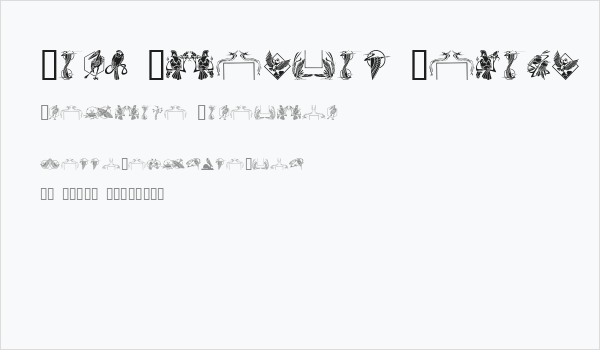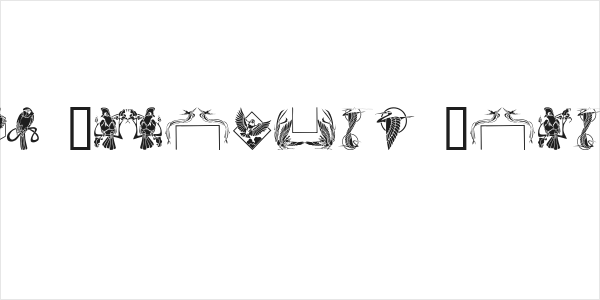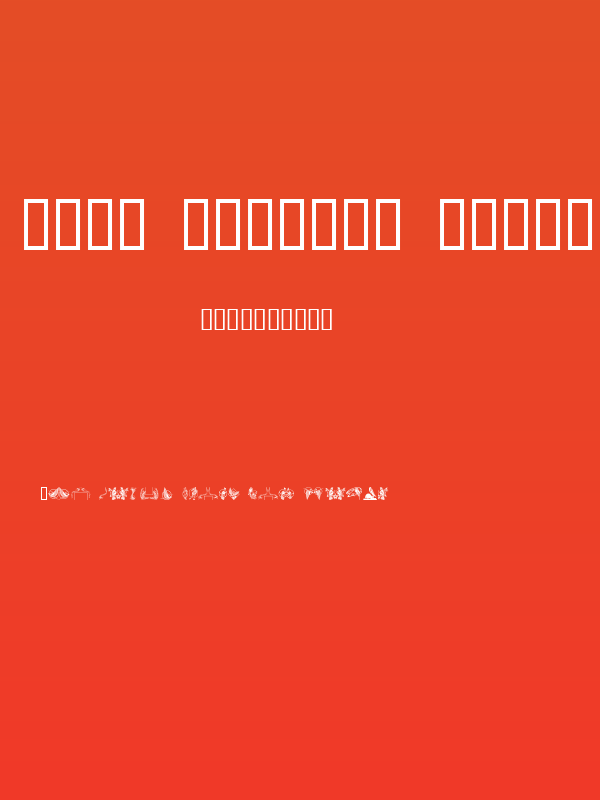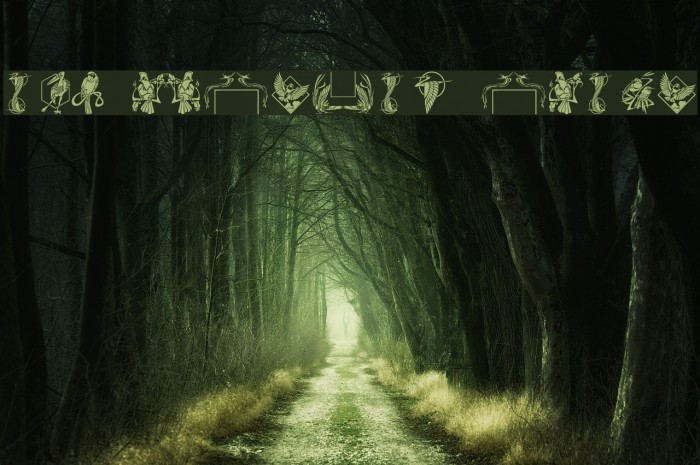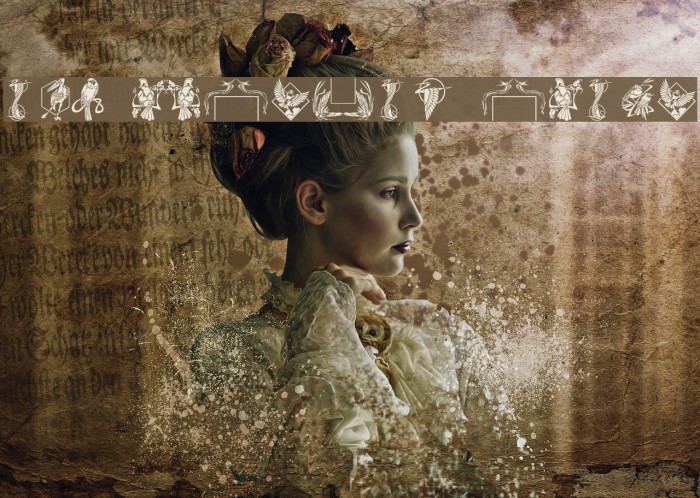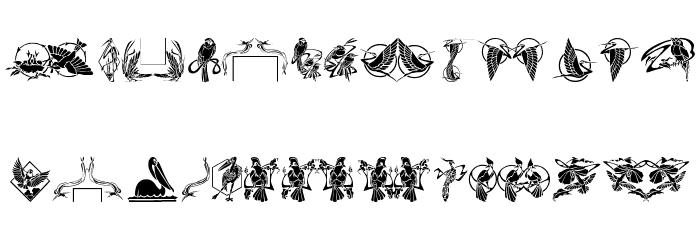
Bird Stencil Design Font
Bird Stencil Design Description
A decorative display set featuring intricate bird and nature-themed stencil illustrations, with each character represented by a unique ornamental bird design. The style is highly detailed and artistic, suitable for embellishments rather than standard text.
| Overall Style | Decorative, Artistic, Nature-inspired |
| Use Case | Logos, Decorative elements, Borders, Art projects |
| Proposed Projects | Invitations, greeting cards, scrapbooking, decorative borders, art projects, themed branding. |